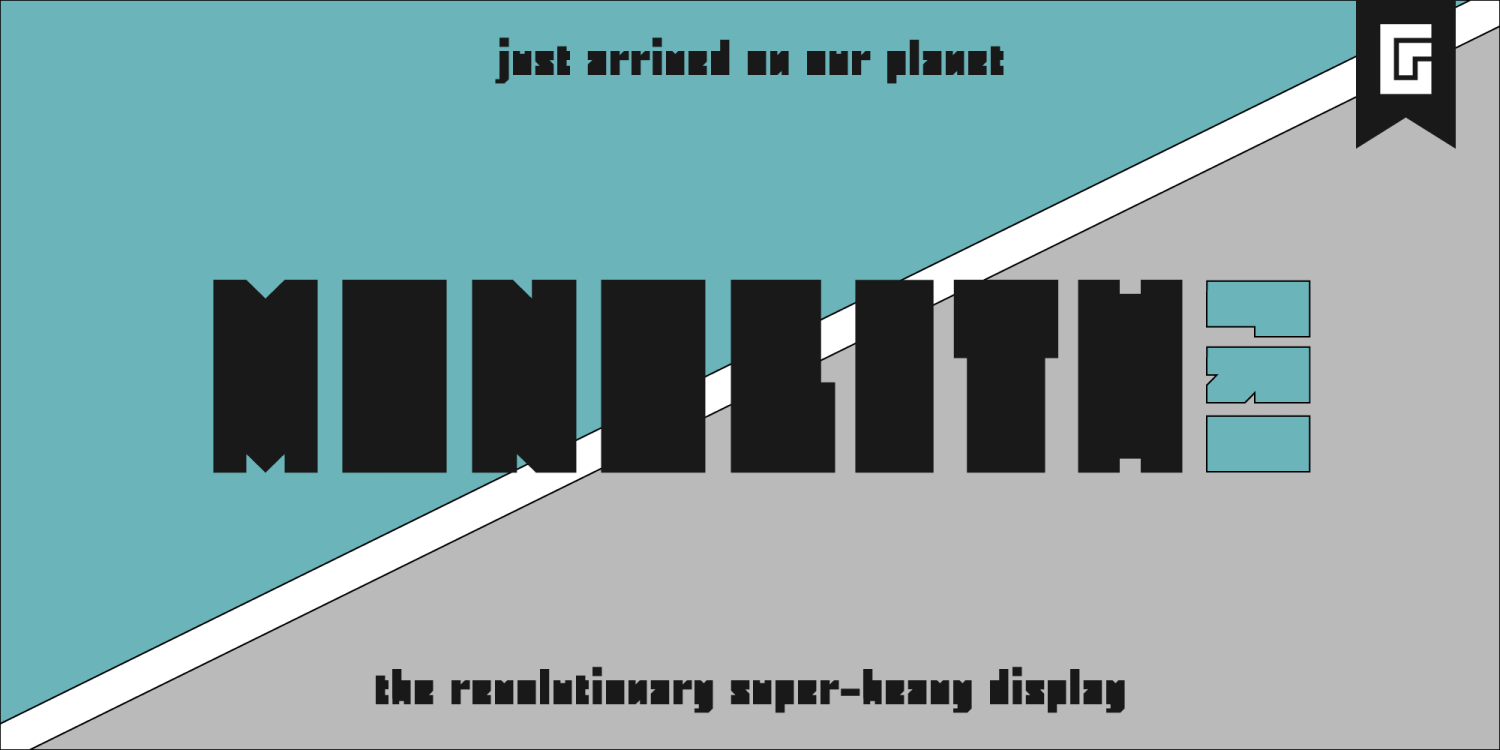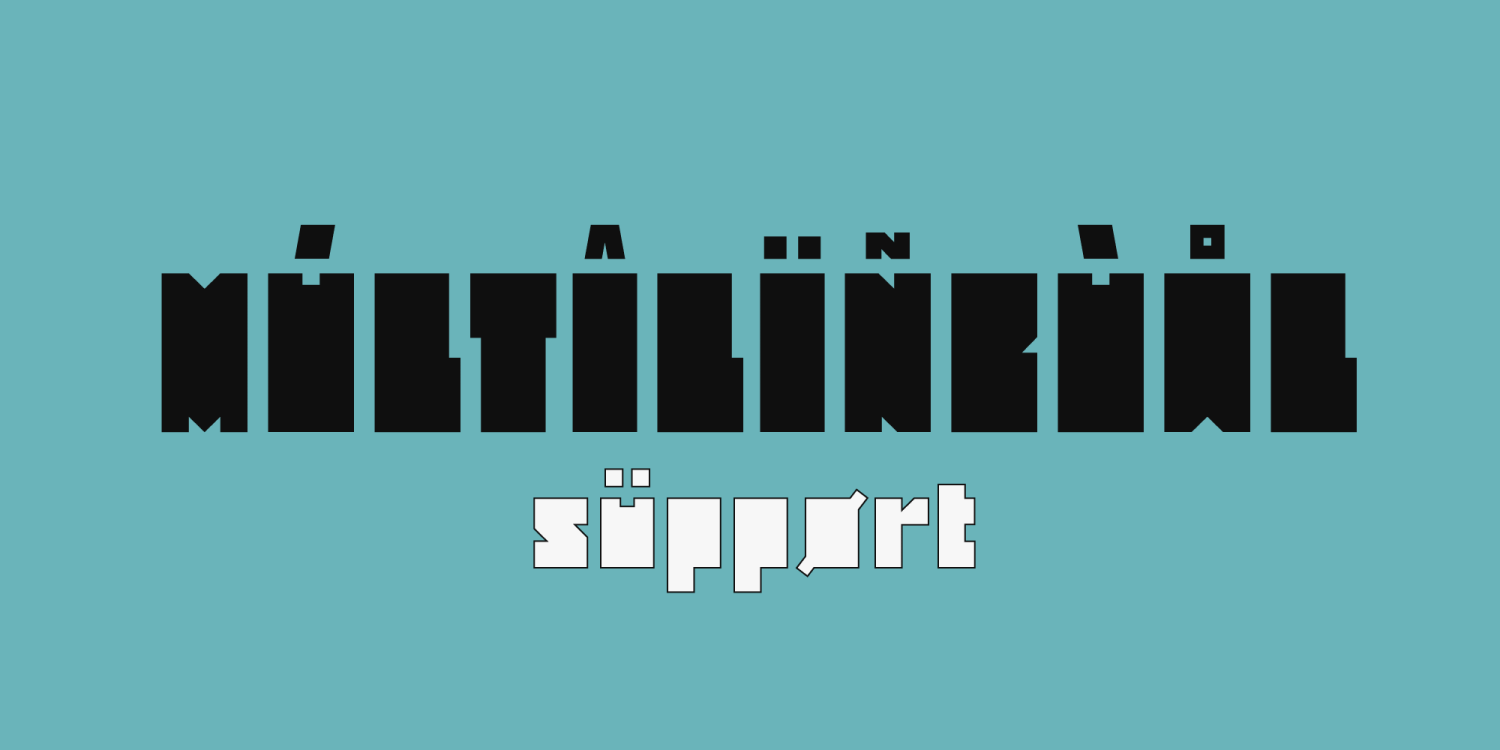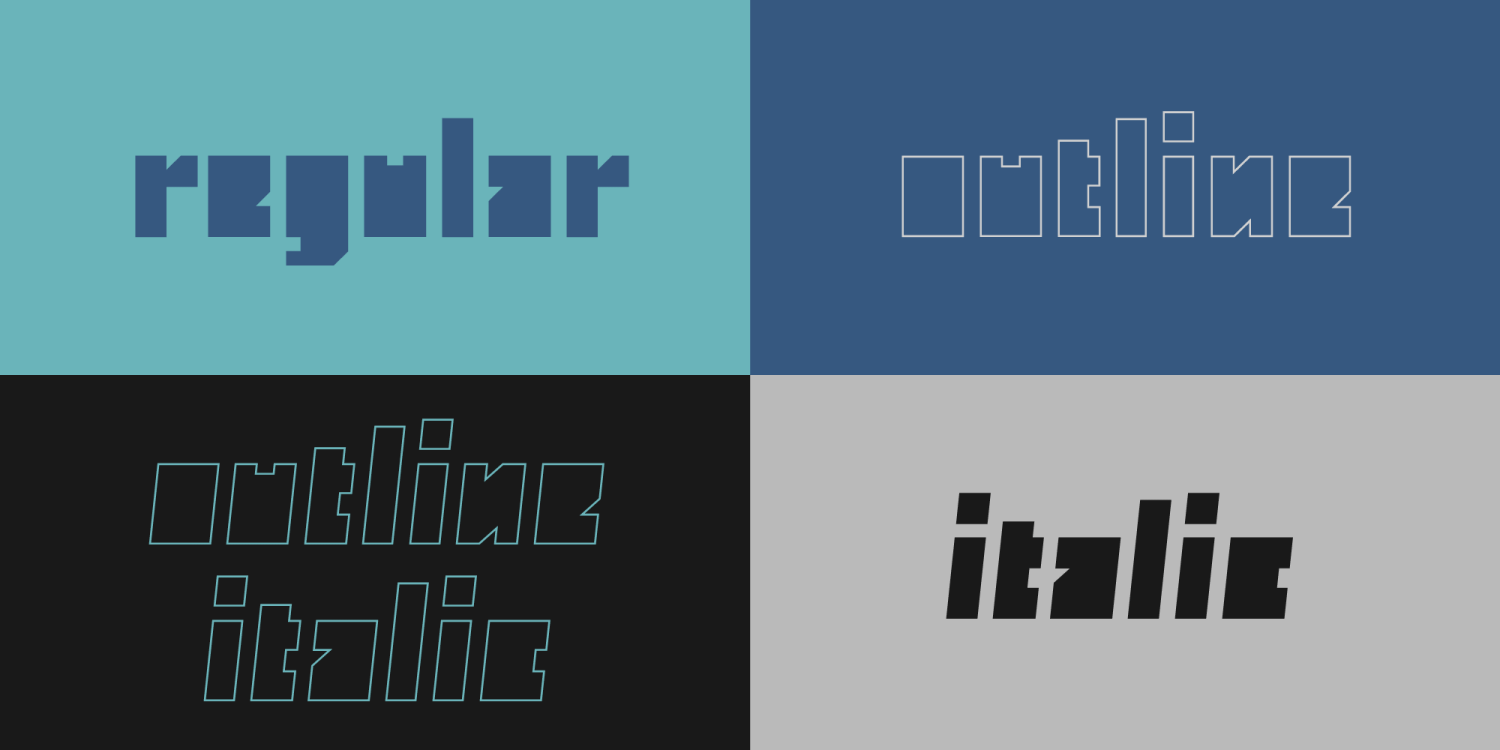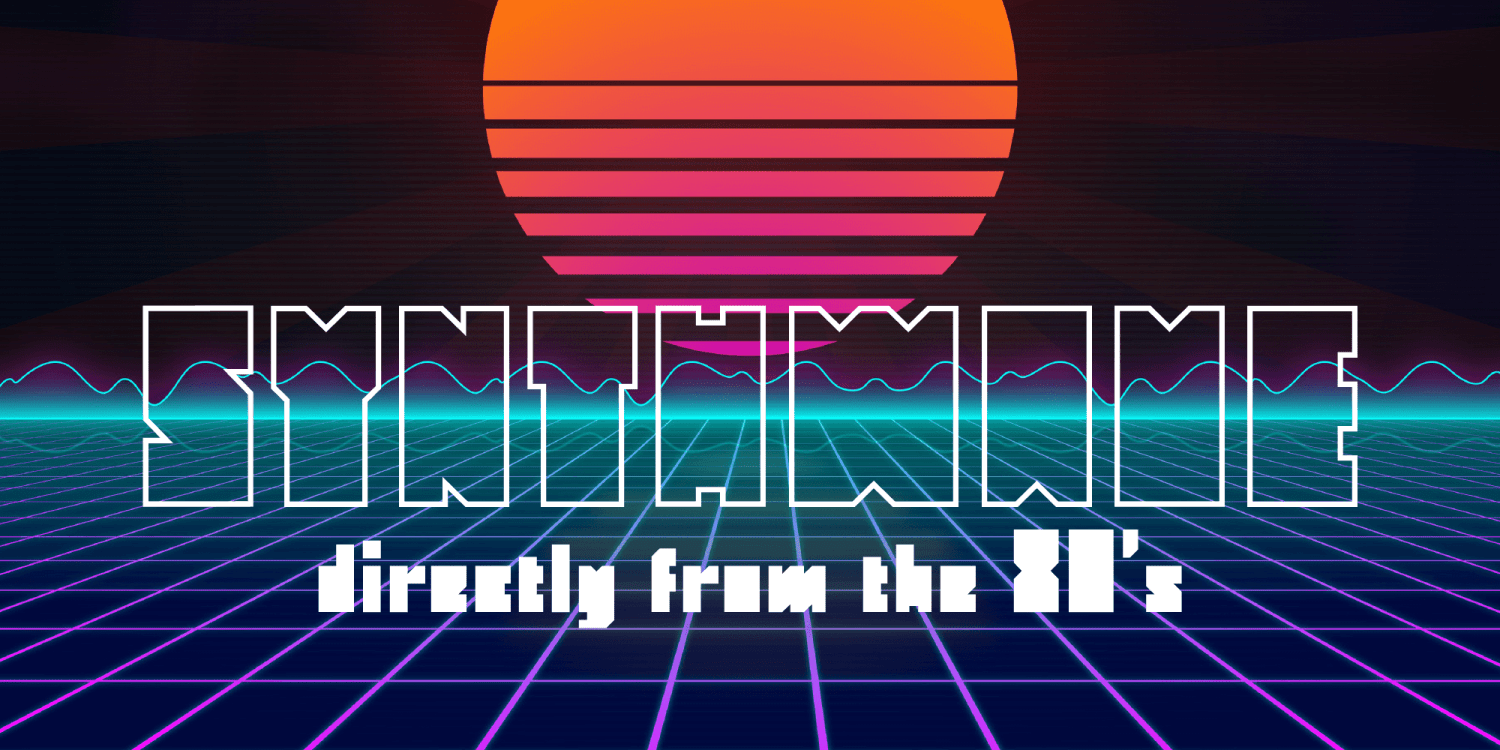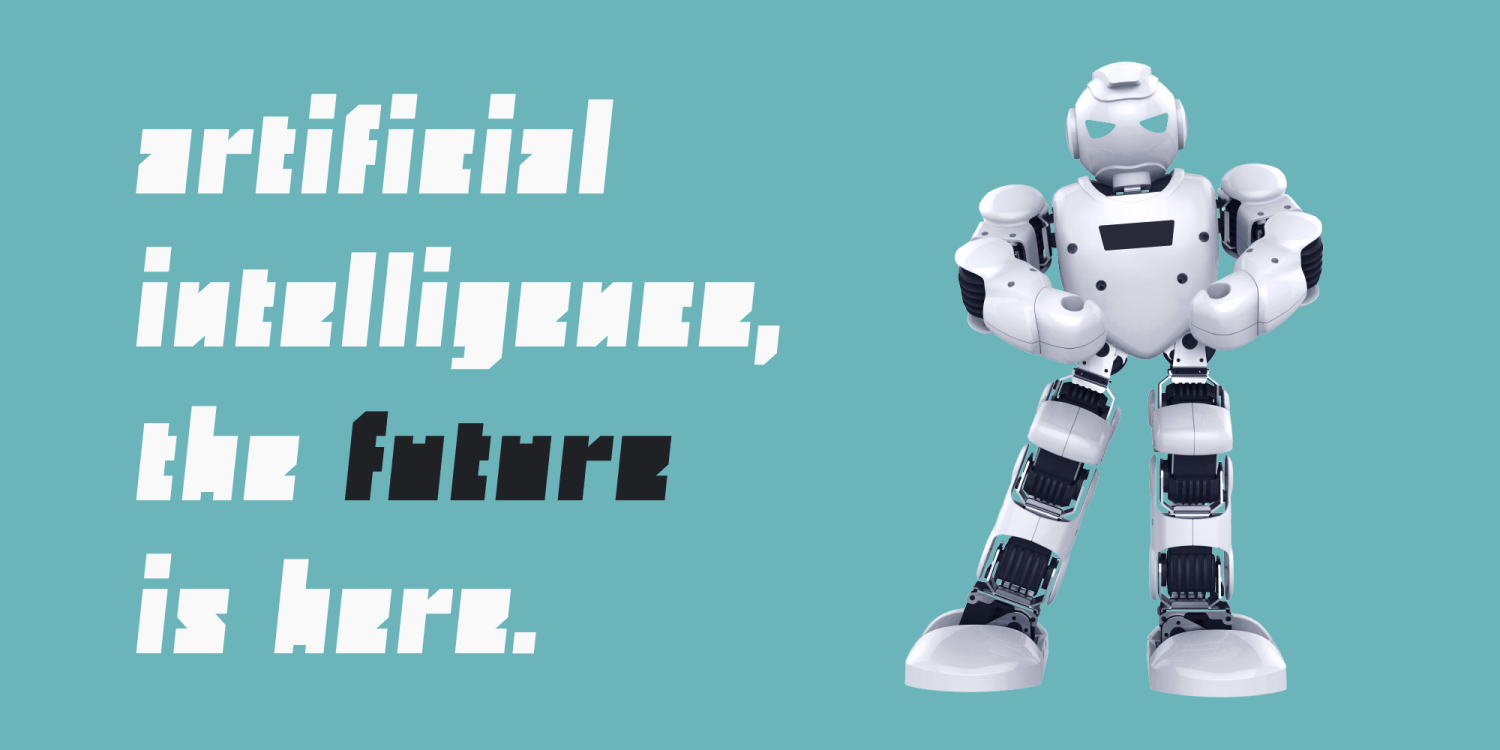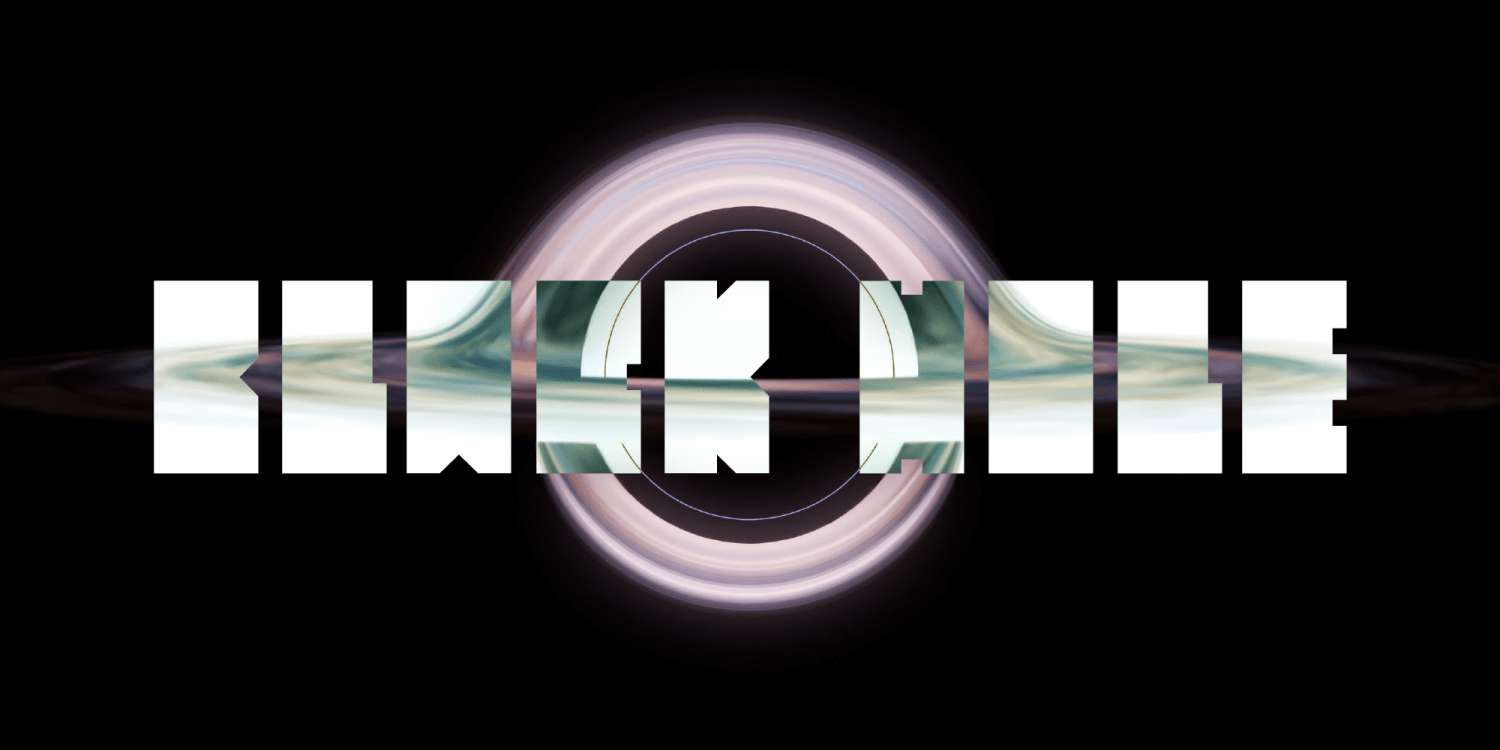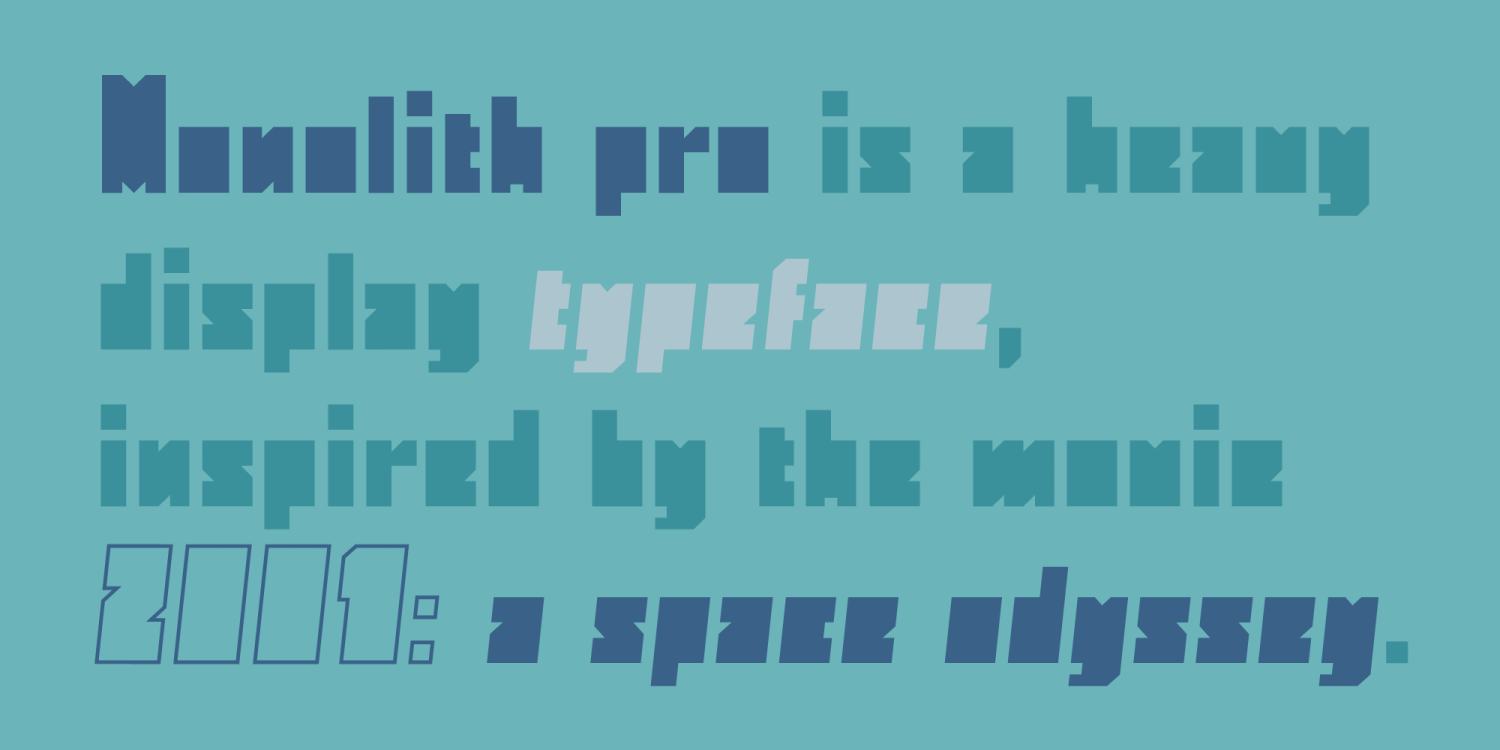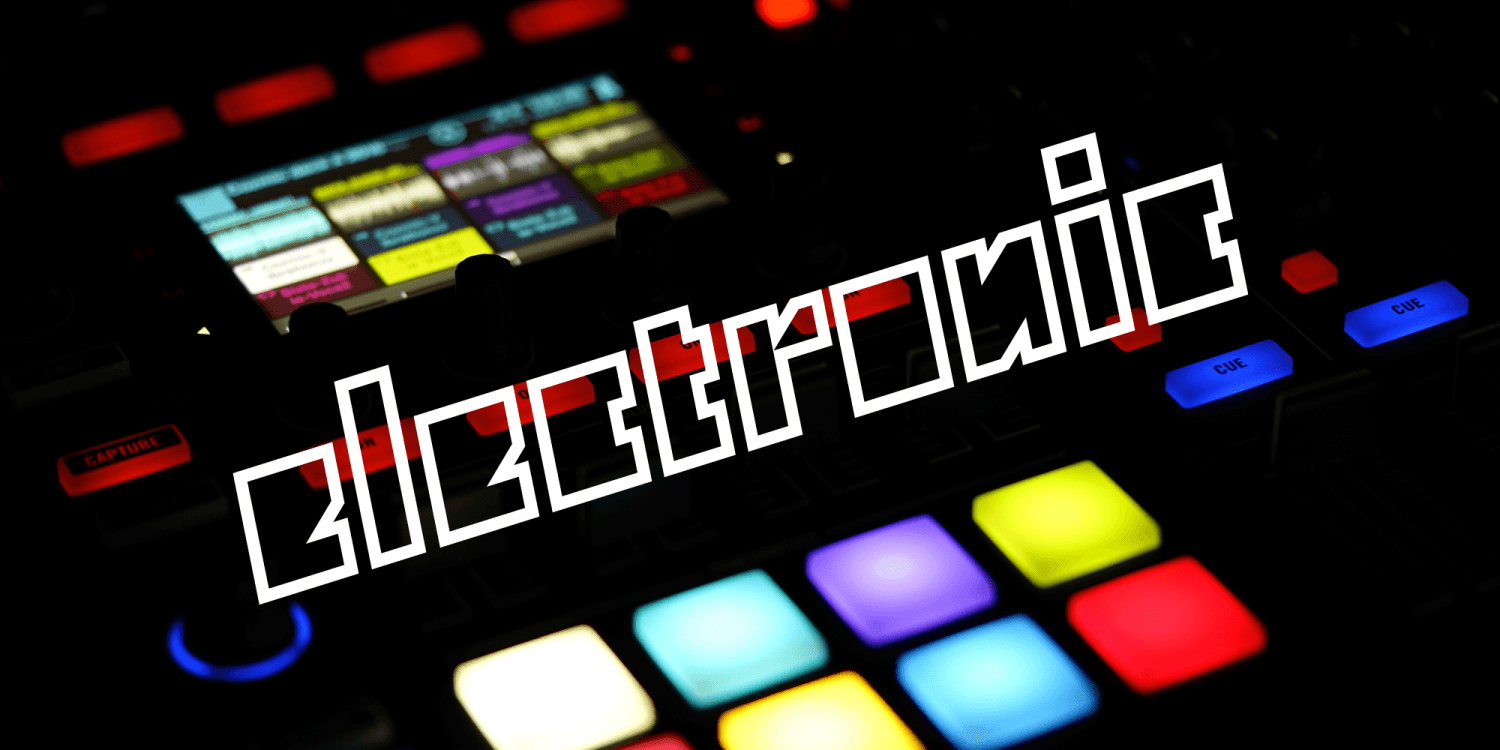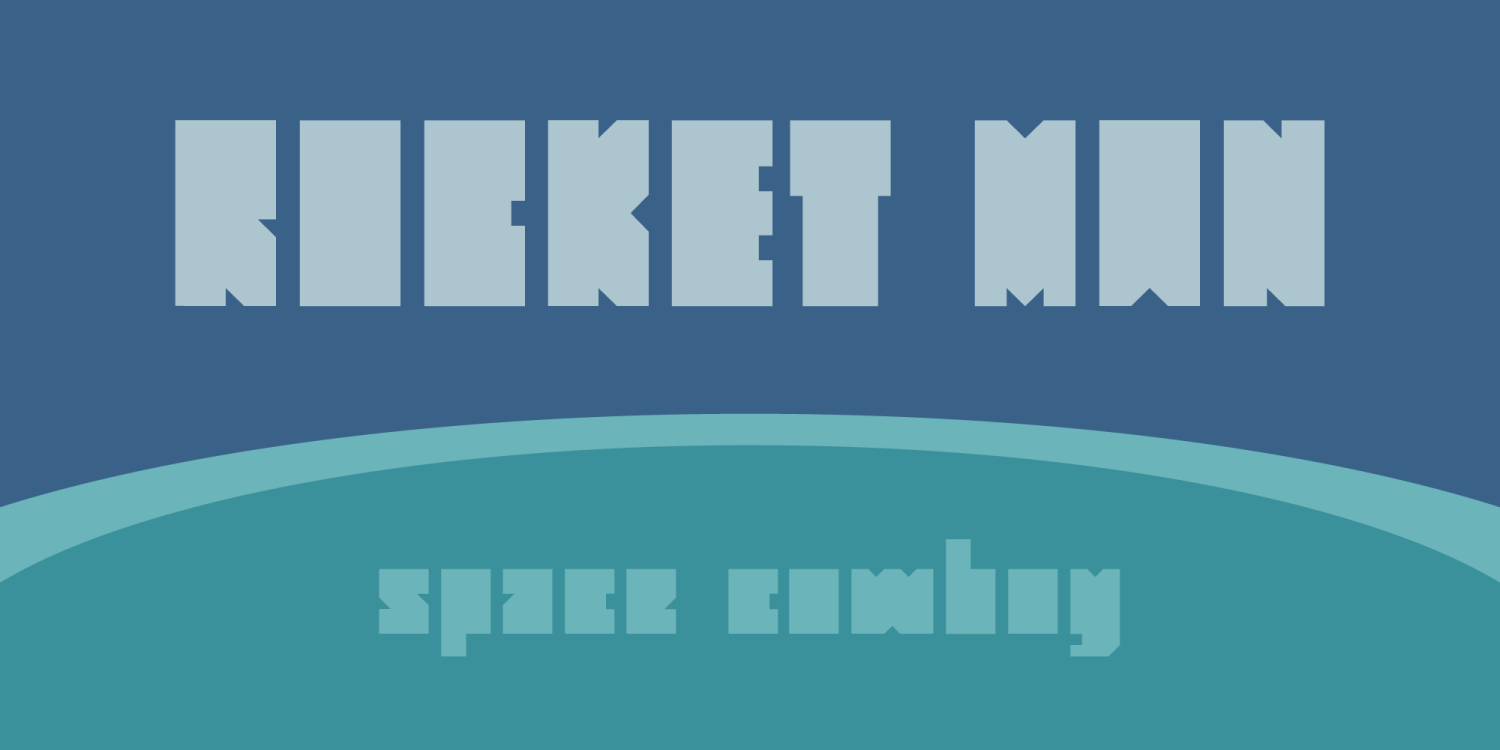
Monolith Pro
Monolith Pro is a futuristic heavy display that steals the show.
This typeface is inspired by the popular Kubrick's movie 2001: A Space Odyssey, from which the iconic monolith scene. The glyphs, in fact, have been designed to fill the rectangular shape, with the addition of minimal inlays to differentiate them consistently.
While the uppercase is perfect for impactful headings and titles, the lowercase completes the main headline masterfully - but can also stand out alone due to its own distinguishable personality.
The family includes 4 styles: regular, italic, outline and outline italic, to give more dynamism and sense of lightness when needed, in contrast with the heavy weight.
Multilingual support is available.